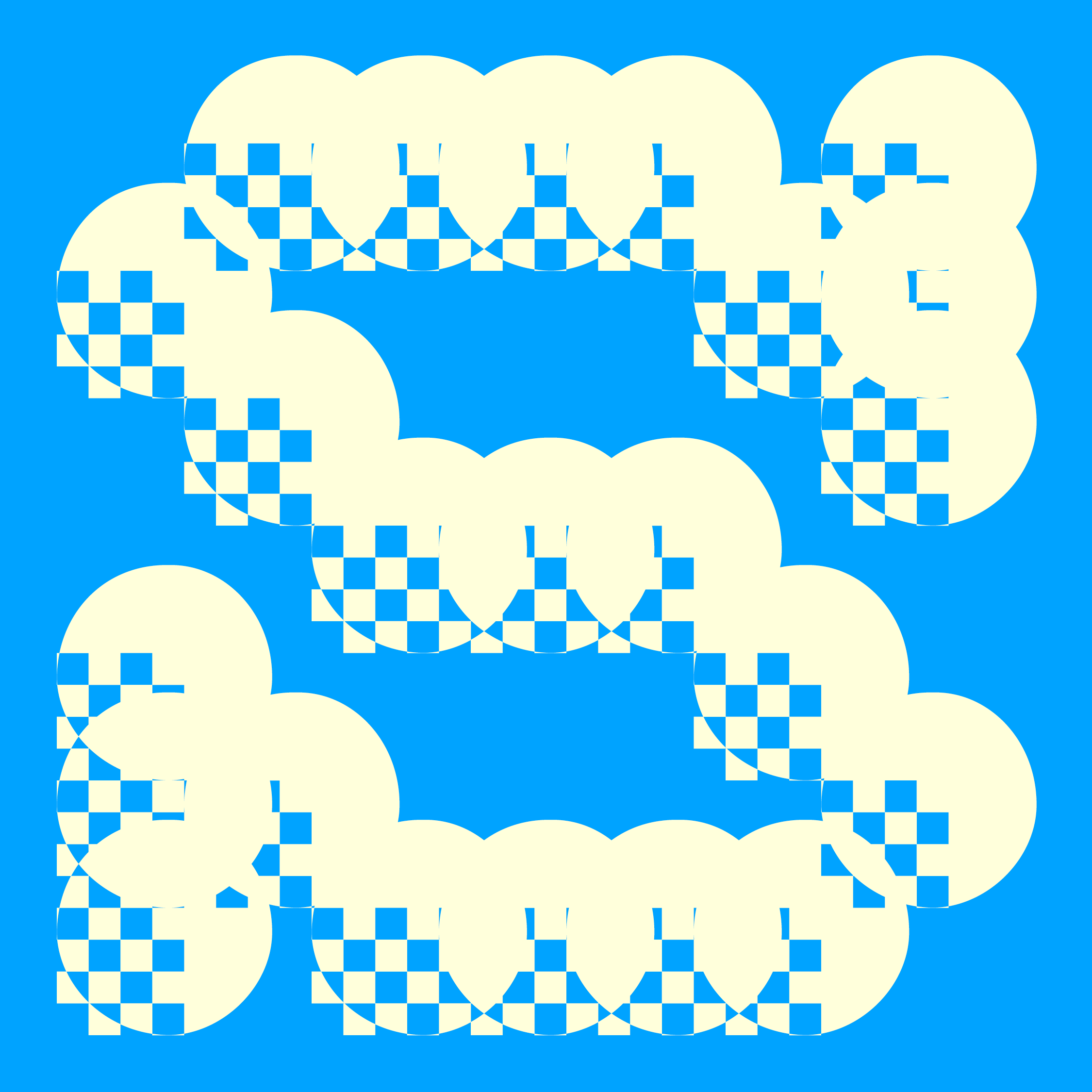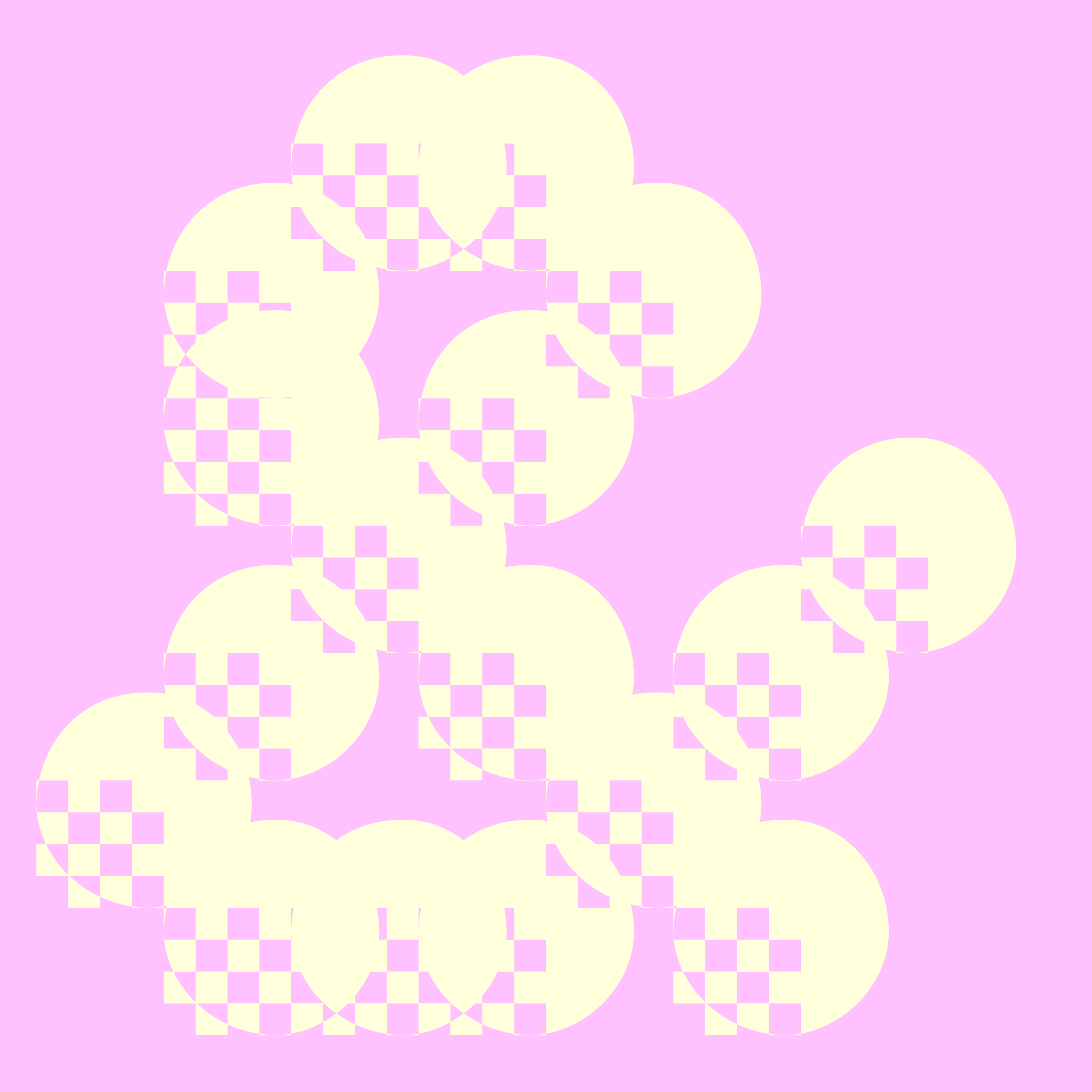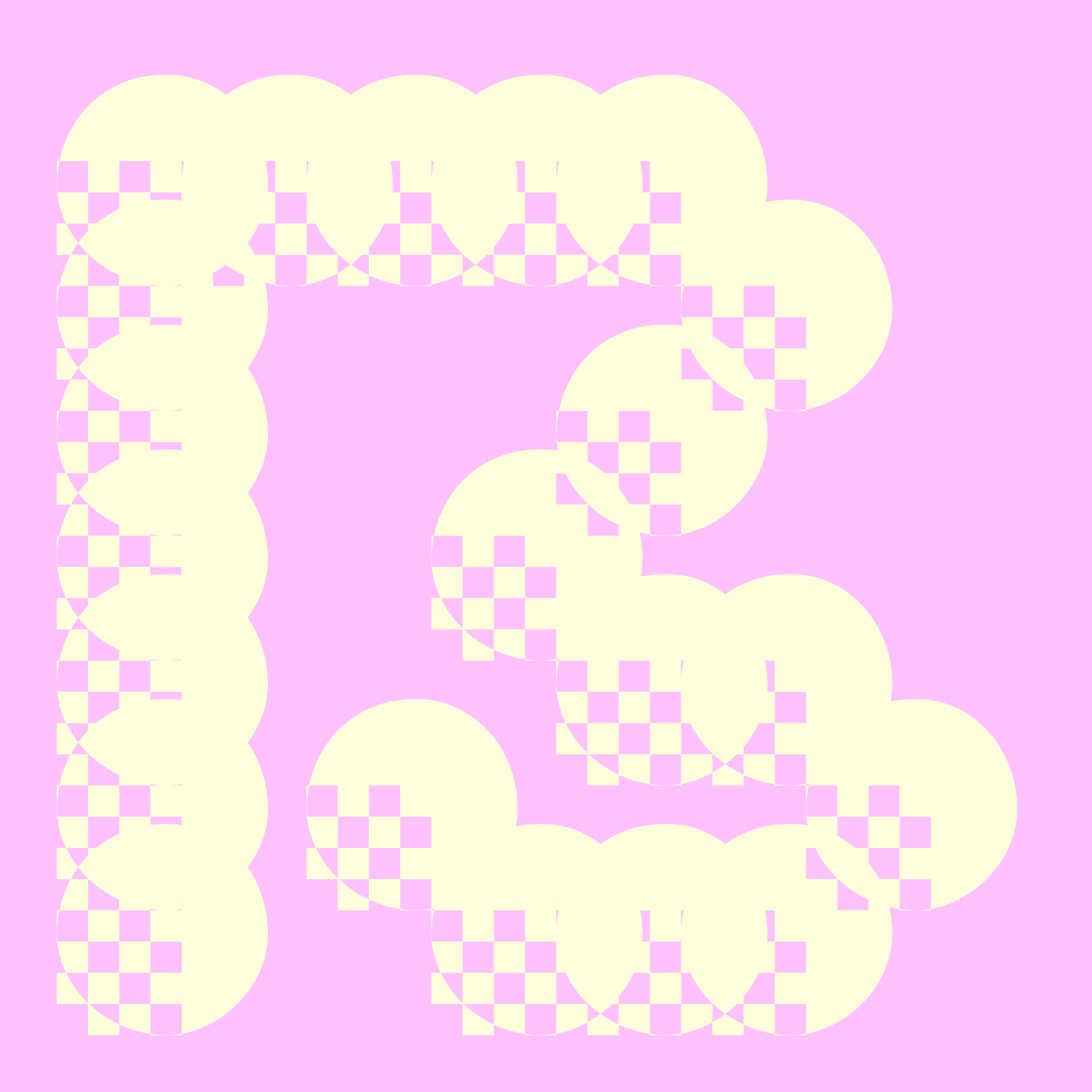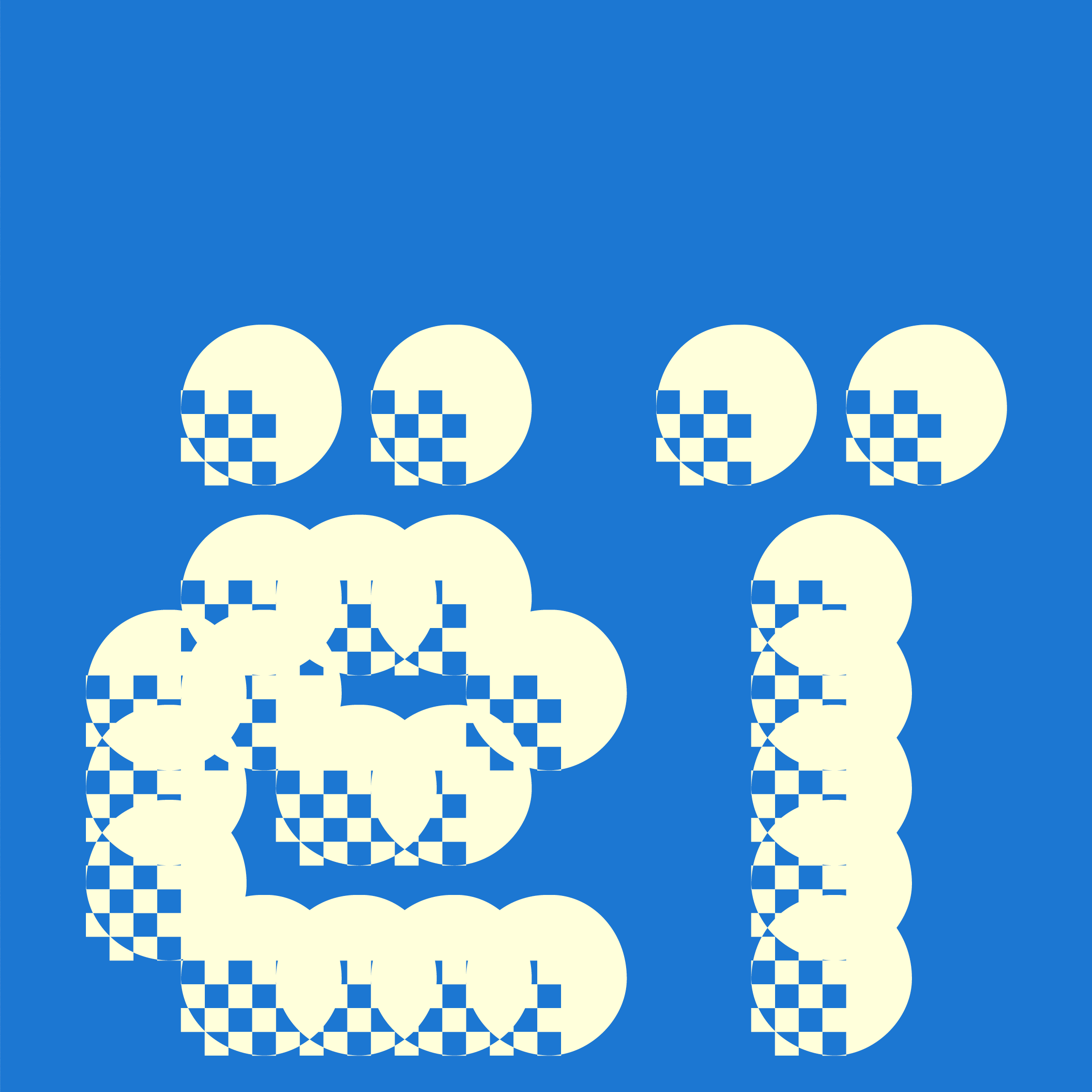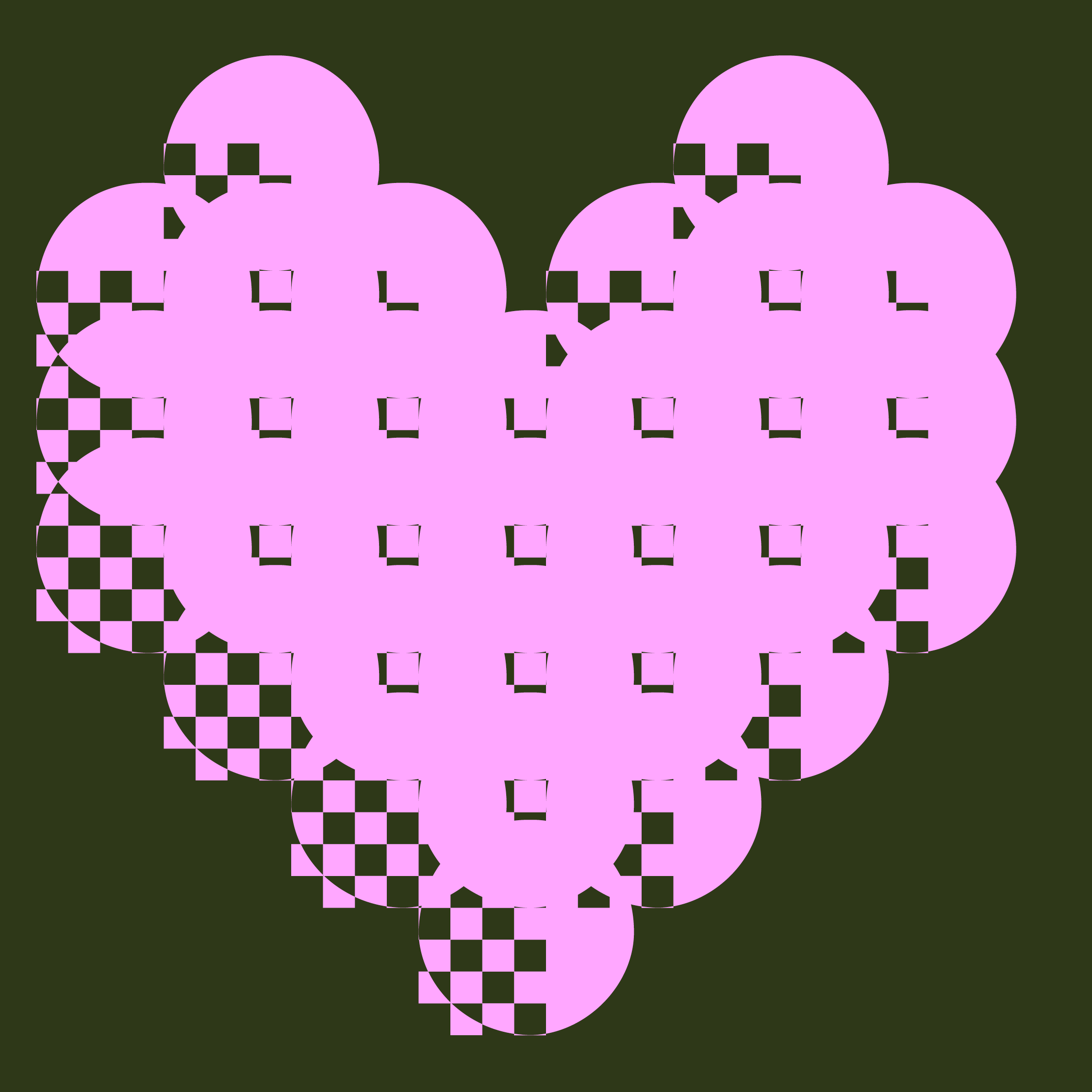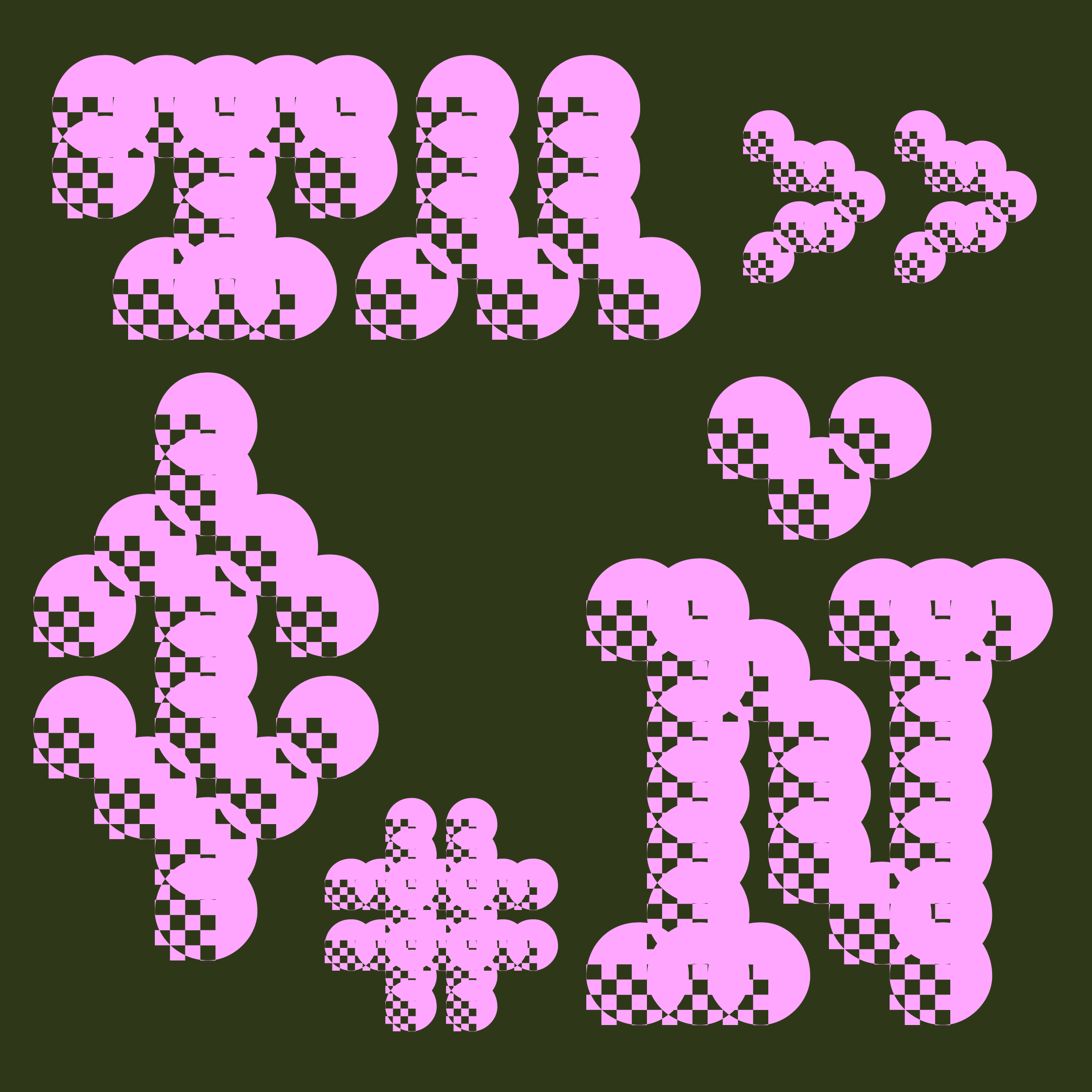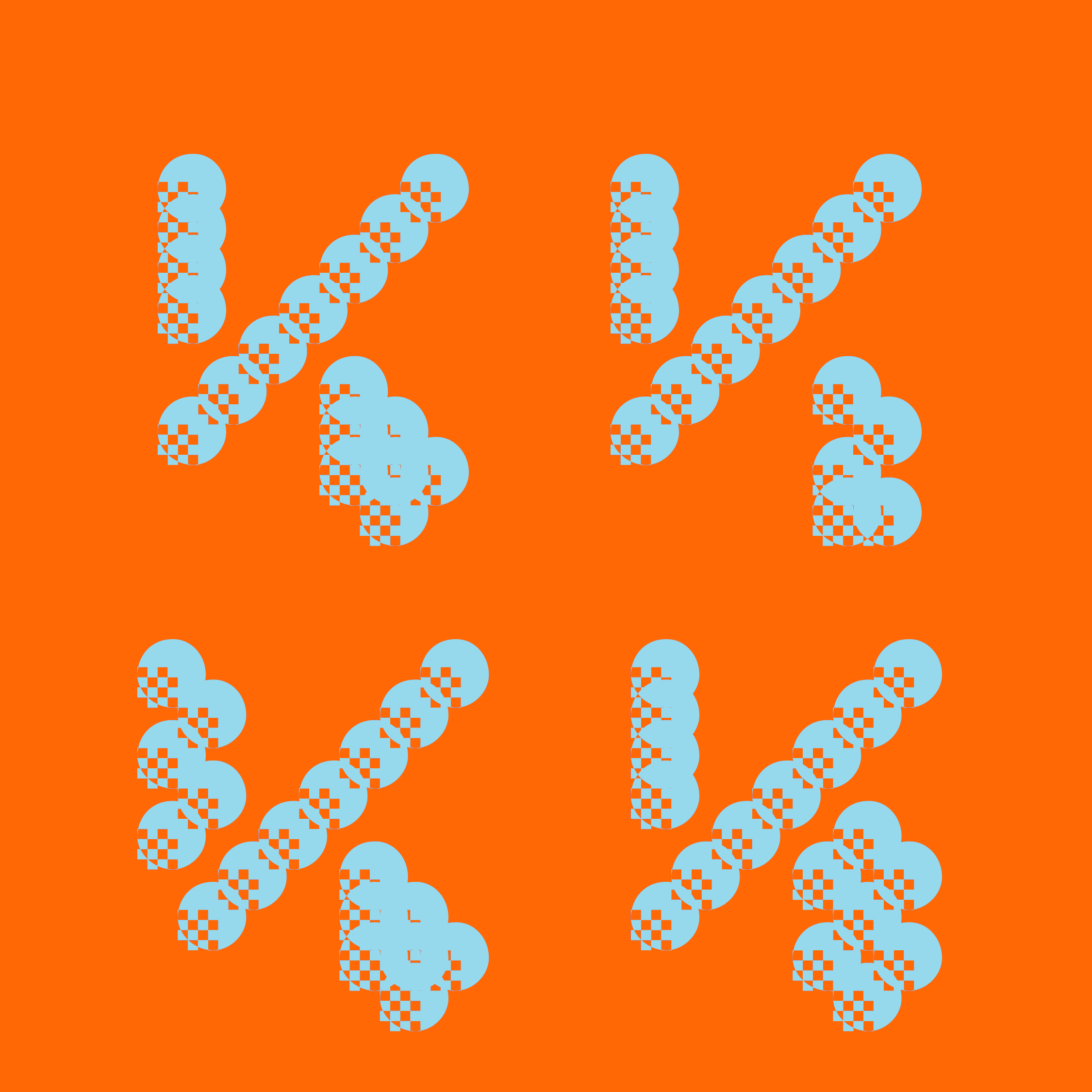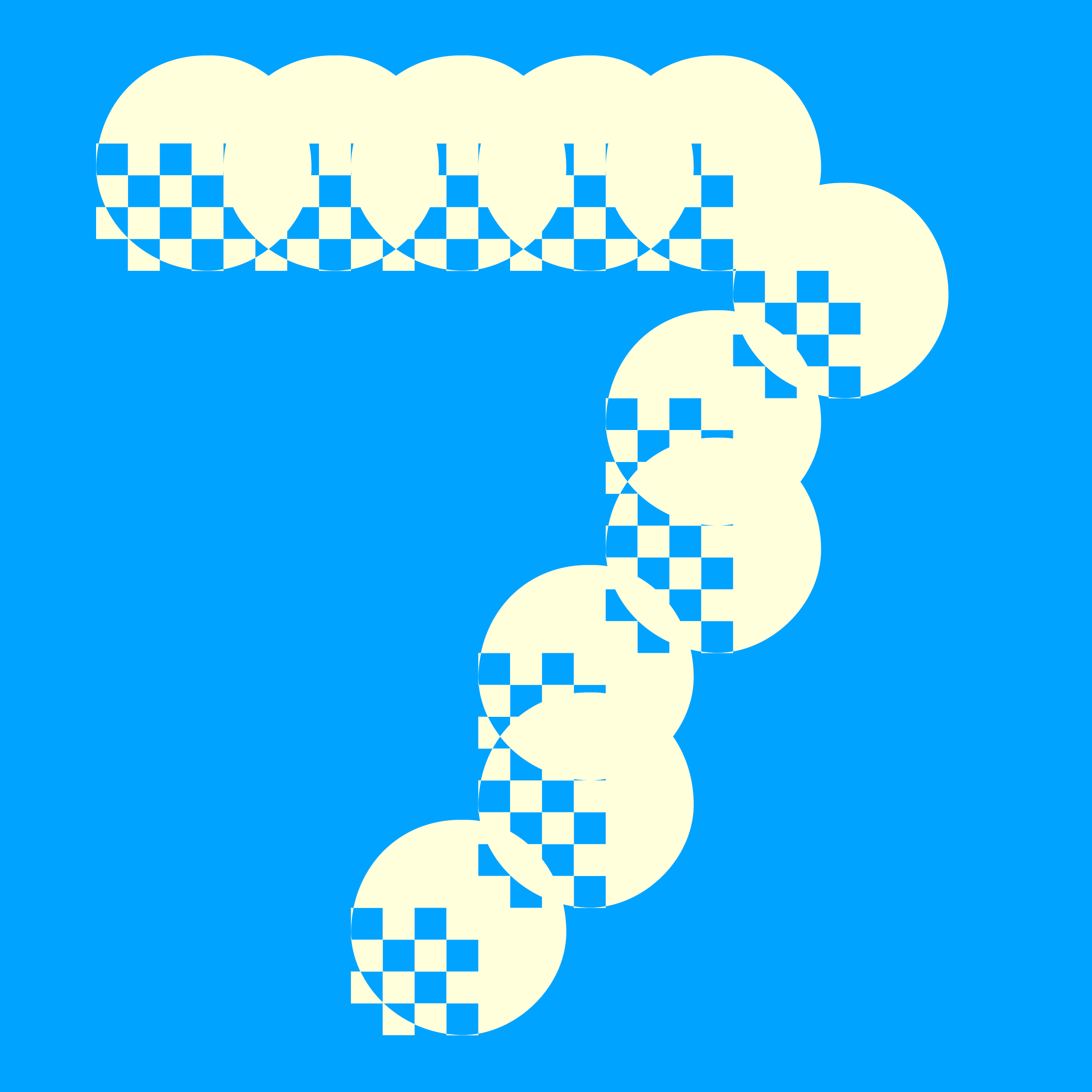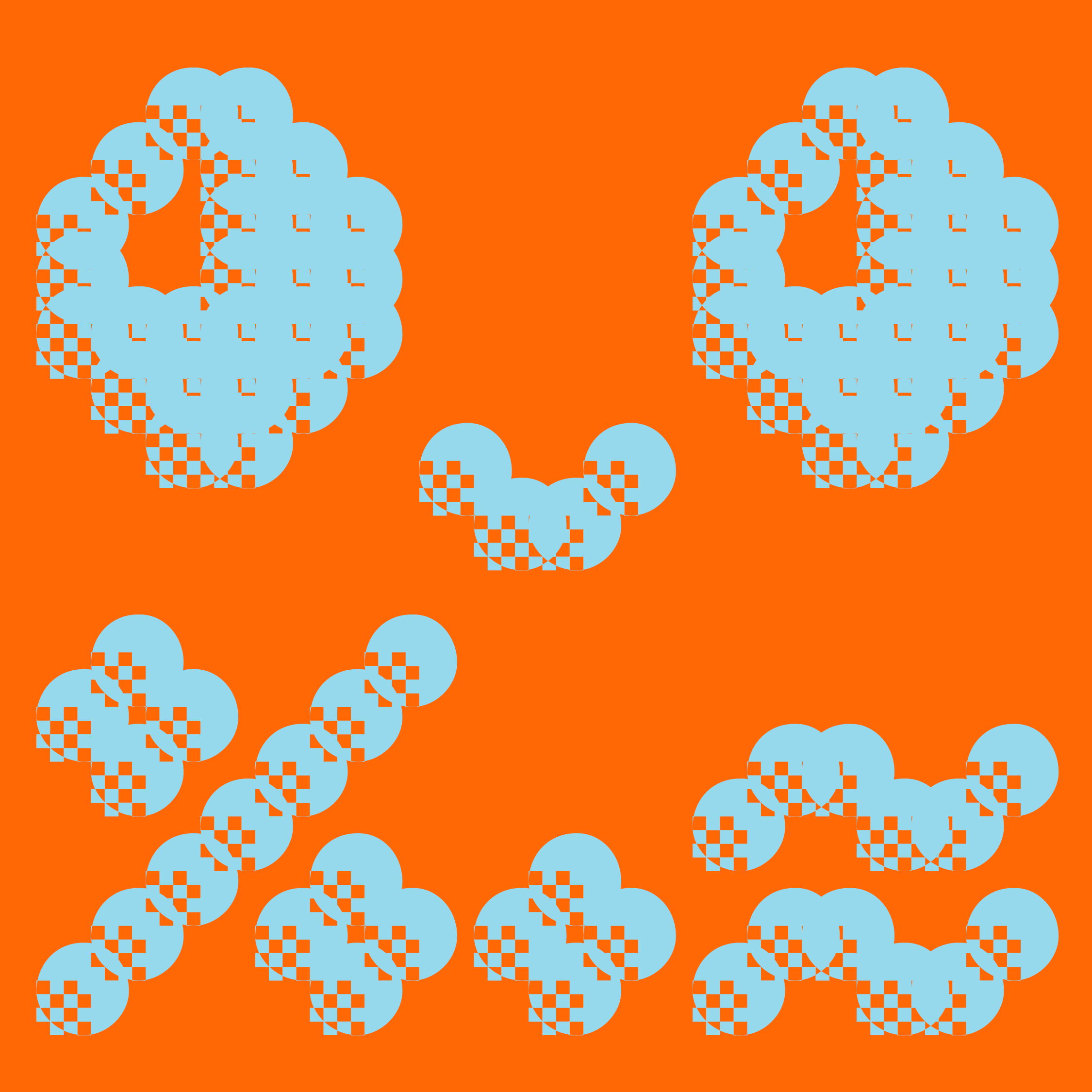
momo
By Xiaoyuan Gao
momo is a cute, weird, chunky, modular typeface inspired by ASCII art. It wanted to be monospaced, but didn't quite make it. ;)
Xiaoyuan's note:
momo in use
momo
Design by Eva Gräbeldinger